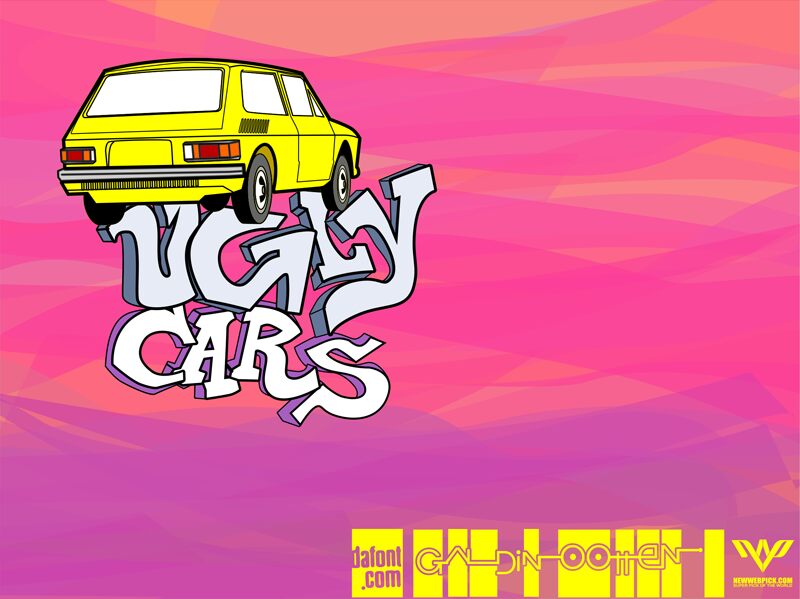
Ugly Cars
Ugly Cars, a quirky and charismatic font crafted by Galdino Otten, is not your ordinary dingbat offering. This collection of car-themed glyphs brings a unique flair to the table with its playful take on various automobile shapes and designs. Each character in Ugly Cars is more than just a letter; it's an imaginative representation of vehicles that exude personality and an almost hand-drawn quality.
The aesthetic appeal of Ugly Cars lies in its whimsical approach to design. The font's style is eye-catching and distinctive, making it perfect for projects that aim to stand out with a touch of humor and novelty. From automotive enthusiasts' event flyers to children's book illustrations, this typeface is versatile enough to inject fun into any creative work.
With its cartoonish appearance, Ugly Cars can add an element of lightheartedness to merchandise designs or become the focal point of engaging marketing materials for businesses within the automotive industry. Whether you're looking for something different for web graphics or seeking an offbeat addition to print media, Ugly Cars delivers both style and character in equal measure.
The aesthetic appeal of Ugly Cars lies in its whimsical approach to design. The font's style is eye-catching and distinctive, making it perfect for projects that aim to stand out with a touch of humor and novelty. From automotive enthusiasts' event flyers to children's book illustrations, this typeface is versatile enough to inject fun into any creative work.
With its cartoonish appearance, Ugly Cars can add an element of lightheartedness to merchandise designs or become the focal point of engaging marketing materials for businesses within the automotive industry. Whether you're looking for something different for web graphics or seeking an offbeat addition to print media, Ugly Cars delivers both style and character in equal measure.